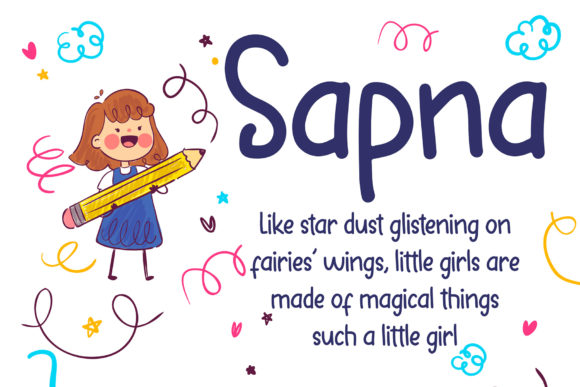
Take your creative designs to new heights with Sapna Font, the enchanting script font family that captures the essence of youthful innocence and heartwarming simplicity. This charming font, meticulously crafted by formatikastd, is an invitation to add a touch of playfulness and warmth to your artistic endeavors.
With its easy-going nature and effortless charm, Sapna Font is the perfect companion for projects that demand a friendly and approachable feel. Its finely tuned curves and gentle lines bestow a sense of warmth and joy, ensuring that your creations leave a lasting impression on your audience.
Imagine the delight of your little ones as they witness their school projects transformed into captivating masterpieces, adorned with Sapna Font's delightful characters. Each letter dances across the page, carrying with it a sense of wonder and imagination, making learning a truly magical experience.
Unleash your creativity and explore the boundless possibilities that await you with Sapna Font. Craft heartfelt invitations that radiate warmth and charm, design whimsical posters that ignite the imagination, and create captivating branding materials that leave an indelible mark.
Sapna Font is more than just a collection of characters; it's a gateway to a world where imagination reigns supreme and creativity knows no bounds. Let Sapna Font be your muse, and together, embark on a journey of artistic self-expression that will leave you feeling inspired and fulfilled.